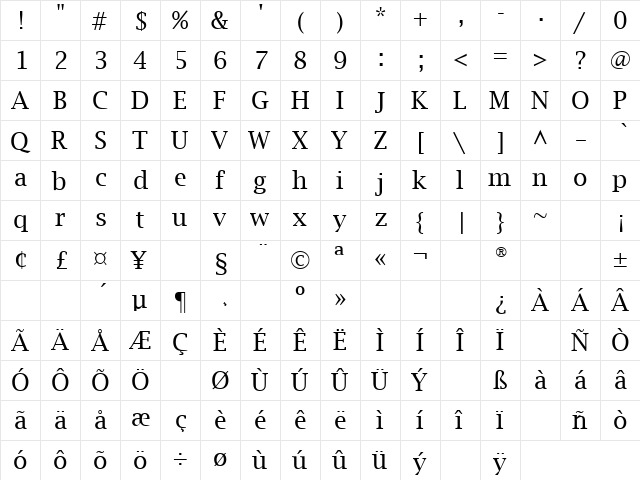
Signs Of Life 5 Regular
Design Context for Signs Of Life 5 Typeface
Signs Of Life 5 offers clean, dependable letterforms without strong stylistic allegiance, making it a practical choice for designers who need flexibility.